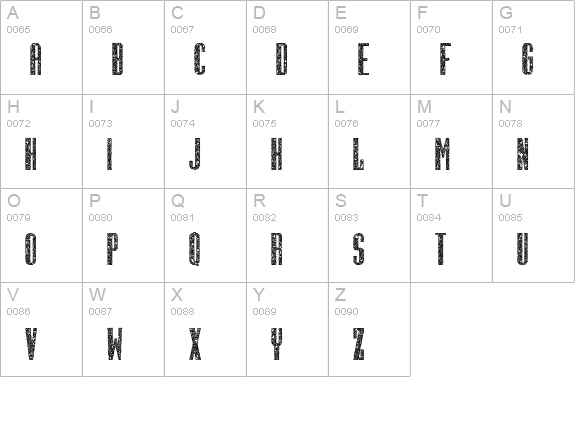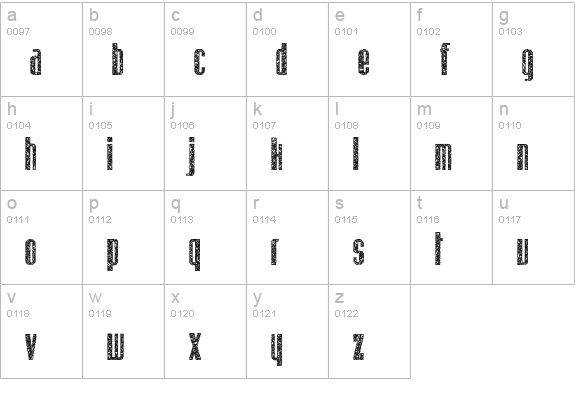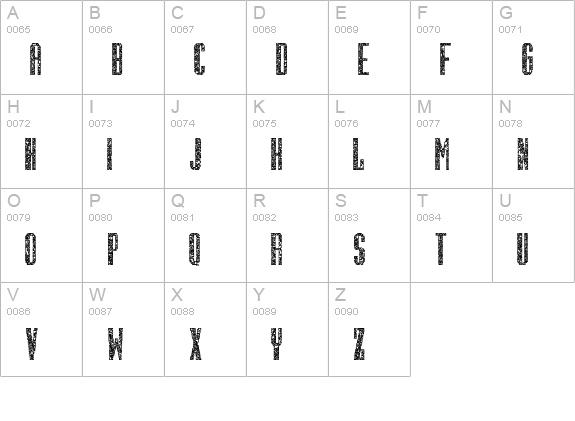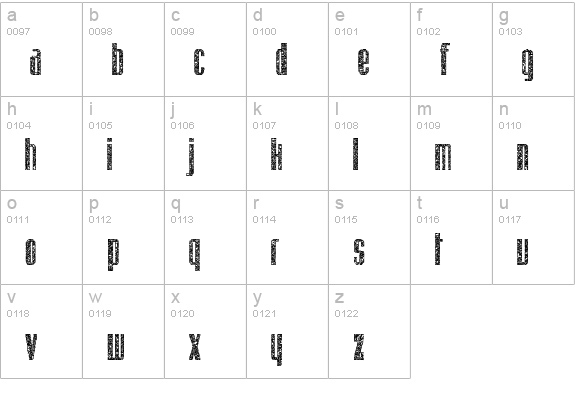
Osteo Corroded Font Details
Introducing Osteo Corroded font, a unique and edgy typeface that exudes a sense of decay and ruggedness. This font features rough, weathered edges and a distressed appearance, giving it a raw and gritty aesthetic perfect for adding a touch of vintage charm to your designs. Osteo Corroded font is ideal for projects that require a bold and industrial look, such as posters, album covers, apparel designs, and more. Its characterful imperfections and worn-out vibe make it a standout choice for creating eye-catching visuals that demand attention. Best of all, Osteo Corroded font is completely free to download at FontsMarket.com, allowing you to easily incorporate this striking typeface into your creative projects without breaking the bank. Don't miss out on the opportunity to add a touch of rugged appeal to your designs with Osteo Corroded font.